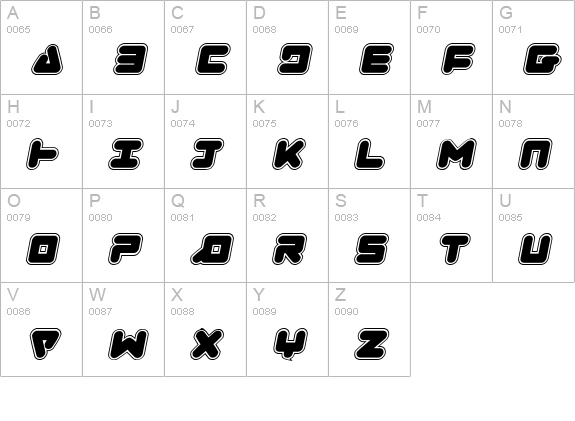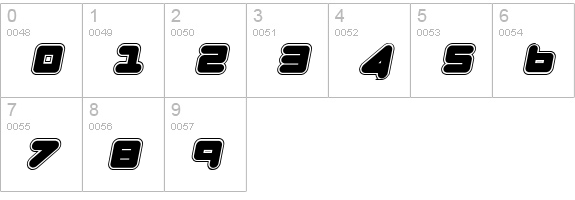
Zealot College Italic is a distinctive, italic variant in the Zealot typeface family \xE2\x80\x94 well suited to design and typography projects.
Zealot College Italic font is a striking and dynamic typeface that exudes a sense of passion and fervor. Its bold, slanted design adds a touch of intensity to any text, making it perfect for headlines, titles, and other eye-catching elements. With its unique style and character, Zealot College Italic font is sure to make a statement and leave a lasting impression on your audience. Best of all, Zealot College Italic font is available for free download at FontsMarket.com. This means you can easily add this powerful font to your collection without any cost. Don't miss out on the opportunity to enhance your designs with the captivating Zealot College Italic font today!